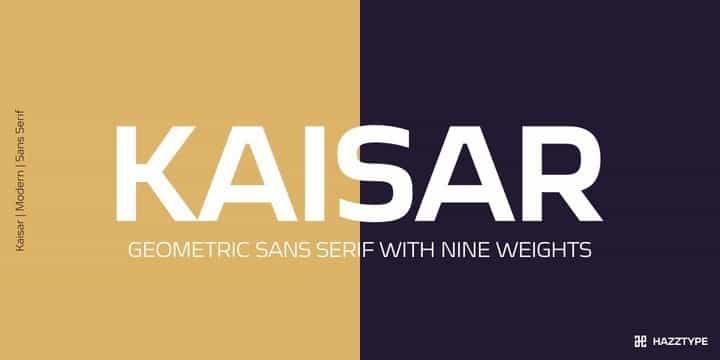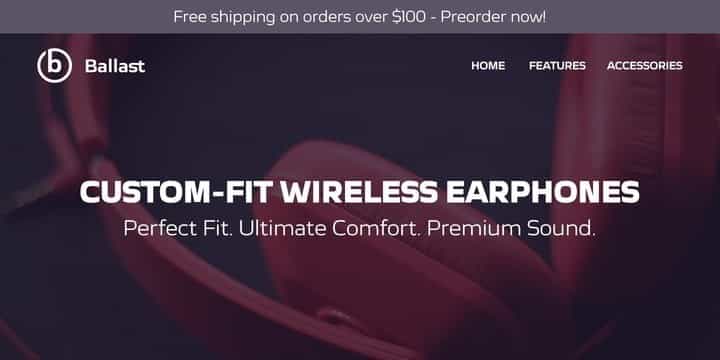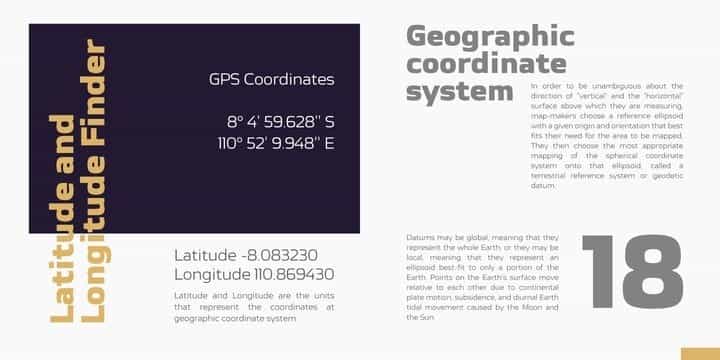
Kaisar is a recently designed and very bold sans serif font family. It is possible to notice its significant, non-soft character in the refined letters and modernistic elements. Each font from the family has enough potential to be used on its own, and have the dynamic energy of a solo player.